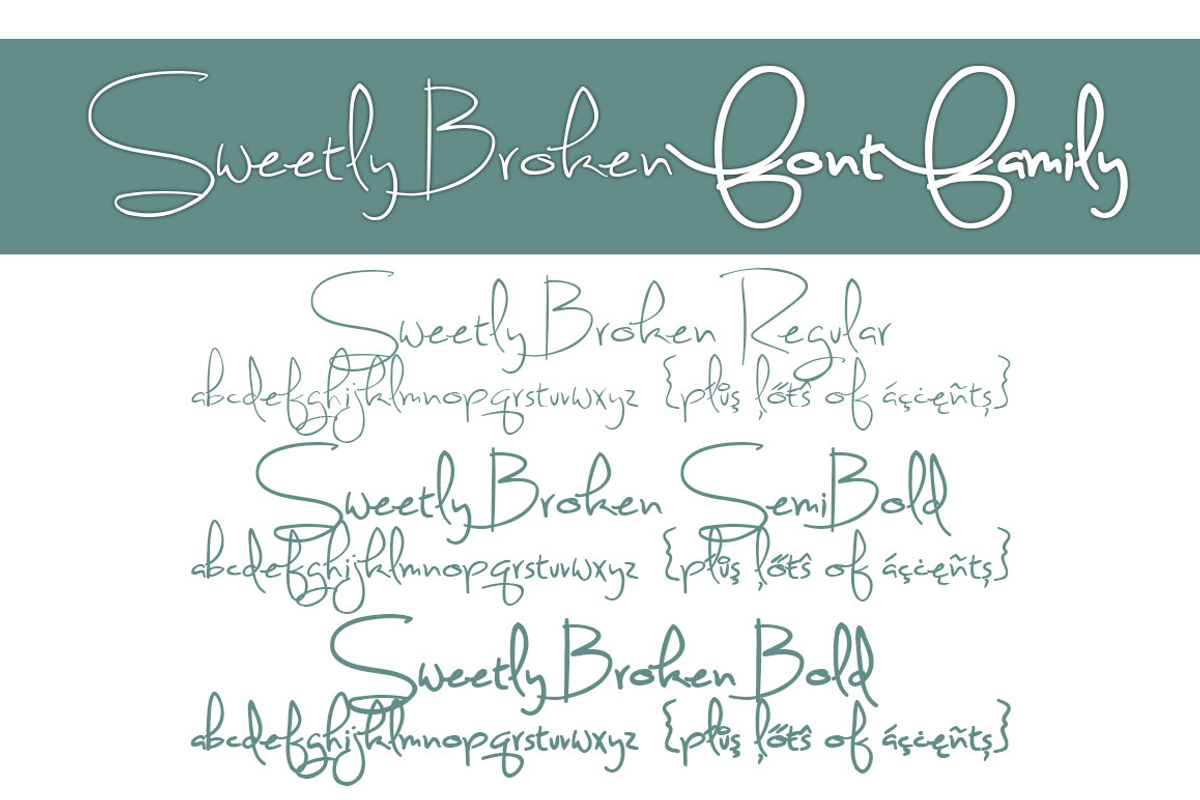
Sweetly Broken Font Family
Sweetly Broken Font Family by Brittney Murphy Design is a font selected for branding, posters, packaging, typography.
- Sweetly Broken Regular
- Sweetly Broken SemiBold
- Sweetly Broken Bold
Why Sweetly Broken Font Family is worth a look
Sweetly Broken Font Family by Brittney Murphy Design fits naturally into Branding, posters, packaging, typography.